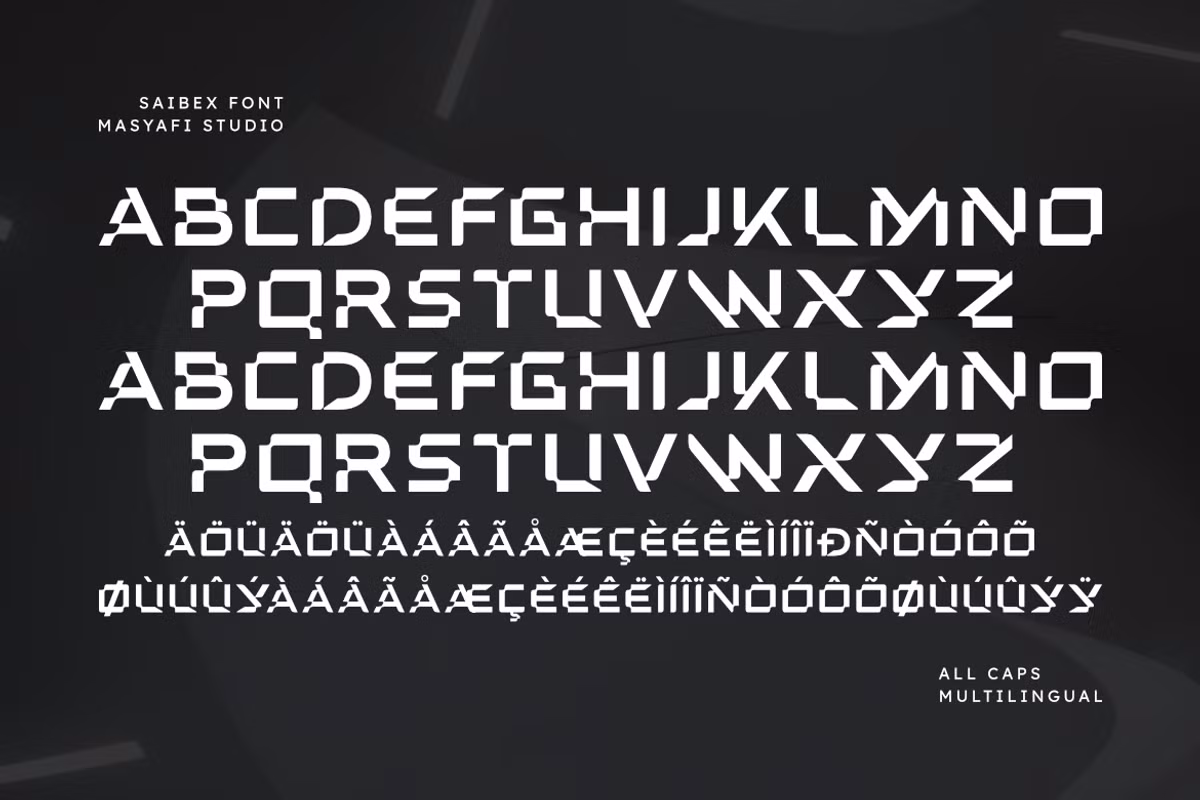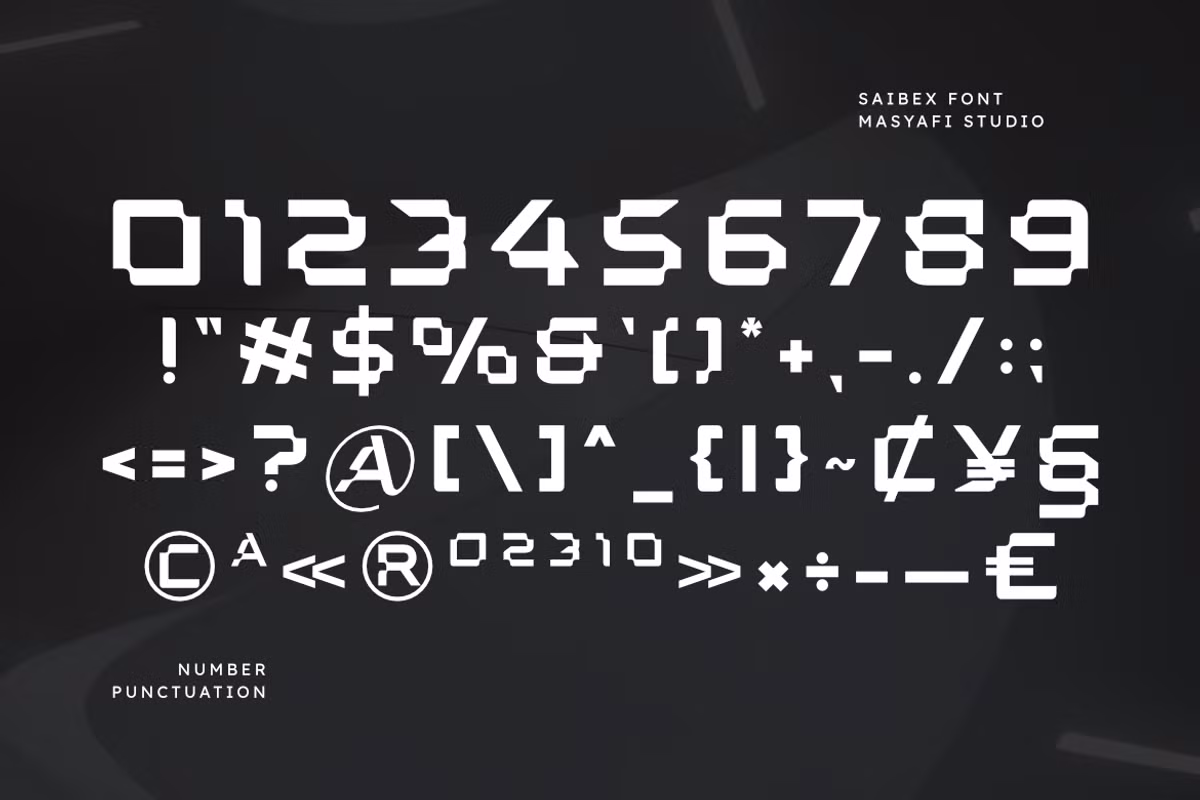
Saibex: Bold Futuristic Font for Technology and Sports Design
Saibex | Futuristic Technology Font
Saibex: Bold Futuristic Font for Technology and Sports Design
Unleashing the Power of Saibex Saibex is a font, from Masyafi Studio. Saibex can change the way you work on design projects. Saibex is more than a typeface; Saibex makes a statement in typography. Saibex takes ideas from robots and space buildings. Saibex shows lines. Saibex mixes a look, with a smooth flow. Saibex works well for creators who want to add a feel of ideas to their work. I have tried Saibex. I like how Saibex feels fresh.
Futuristic typography showcasing the Saibex font
Saibex font exemplifying modern design.
Design Style of Saibex
Saibex shows a design style that mixes style with exact shape. The fonts characters have set proportions that draw the eye. Saibex works well for branding that needs a lot of energy because the look matters most. The pointed shapes and clear lines show a look and a smooth feel. Saibex can be used for things, like tech and sports. In my view Saibex fits well for these uses.
I notice the precision of Saibex, in the made letterforms. The design choice improves readability. Makes the Saibex font stand out in visual spaces. Each letter keeps a balance, between boldness and elegance. The Saibex font works for design styles. The result feels balanced.
Close-up of Saibex font letters showcasing geometric precision
Close-up view of Saibex’s geometric letters.
Dynamic Flow
Saibex has shapes and a style that makes the text look like it moves. Saibex adds movement to the letters. Saibex is good when you want to show energy and excitement like, in sports logos or game screens. Saibex makes the viewer feel motion so Saibex works for industries that need speed and fresh ideas.
Character Sets and Features
Saibex serves an audience, with the set of characters. Saibex includes the all‑caps alphabet, numbers and the set of punctuation marks so Saibex works for kinds of text. Also Saibex supports languages so creators can use Saibex in the languages while keeping the style.
Visual representation of Saibex font character set
Character set showcasing Saibex’s versatility.
Use Cases for Saibex
Saibex is a font that works well in design situations. Saibex has features that make Saibex suitable, for industries. The industries need approaches to branding and visual communication. I have tried Saibex in my work. Saibex feels right, for the job.
In the world of gaming and eSports branding matters a lot. I have seen Saibex used for team logos streaming overlays and clan identities. Saibex has lines and a futuristic look that fits the gaming community. Saibex helps brands stand out in a landscape.
Technology and AI
Brands that focus on innovation, software and future tech can pick Saibex. Saibex shows a look that fits the idea of progress and technology. I have used Saibex on a website. Saibex matched the look we wanted. Saibex also works on apps. On material.
Sports and Automotive
Saibex has a look that fits sports apparel and automotive branding. Saibex works for headlines racing graphics or fitness branding. Saibex shows speed and performance. Saibex catches the eye of the people who like energy designs. I see Saibex as a match, for designs.
In the entertainment industry I see Saibex creating titles, posters and sci‑fi book covers. Saibex futuristic style fits stories that explore innovation and the unknown. Saibex is the choice, for creatives, in this field.
Pairing Suggestions for Saibex
When I design with Saibex I pair Saibex with typefaces that match. Pairing Saibex, with matching typefaces lifts the look of the design. Below are some suggestions:
• Sans-serif Fonts: Pair Saibex with clean sans-serif fonts like Helvetica or Montserrat to balance its boldness with a more subdued style.
• Serif Fonts: For a contrast try pairing Saibex with the serif font Playfair Display. I find that the pairing of Saibex and Playfair Display can create a hierarchy, in the designs.
• Display Fonts: I have found that to keep the feel, pair Saibex with the display fonts that share the same geometric qualities. Bebas Neue or Righteous are choices.
Saibex comes in both OTF and TTF formats. Saibex works with the design software that most designers use. Saibex includes all the characters. Saibex gives any designer a set of letters and symbols. When you license Saibex you can be sure you get a quality font that fits the design projects. I have used Saibex in my work. Saibex works well.
From my experience Saibex works for the people who need typography. Saibex helps designers, brand managers, game developers and anyone who wants text. Saibex is flexible so Saibex fits well in the designer’s toolkit. Saibex lets you make work that looks good and connects with the people you want to reach.
In the moving world of design the Saibex font stands out as a modern font that shows new ideas and life. Saibex has shapes and smooth flow. Saibex works well for uses from games and tech, to sports and entertainment. I have used Saibex when I design a brand look or a picture. Saibex helps me make an impact. Saibex feels fresh. I have found the character set, the multilingual support and the many use cases make the product an useful tool. I recommend the product to any designer who wants to push limits. The product helps me work faster and explore ideas.